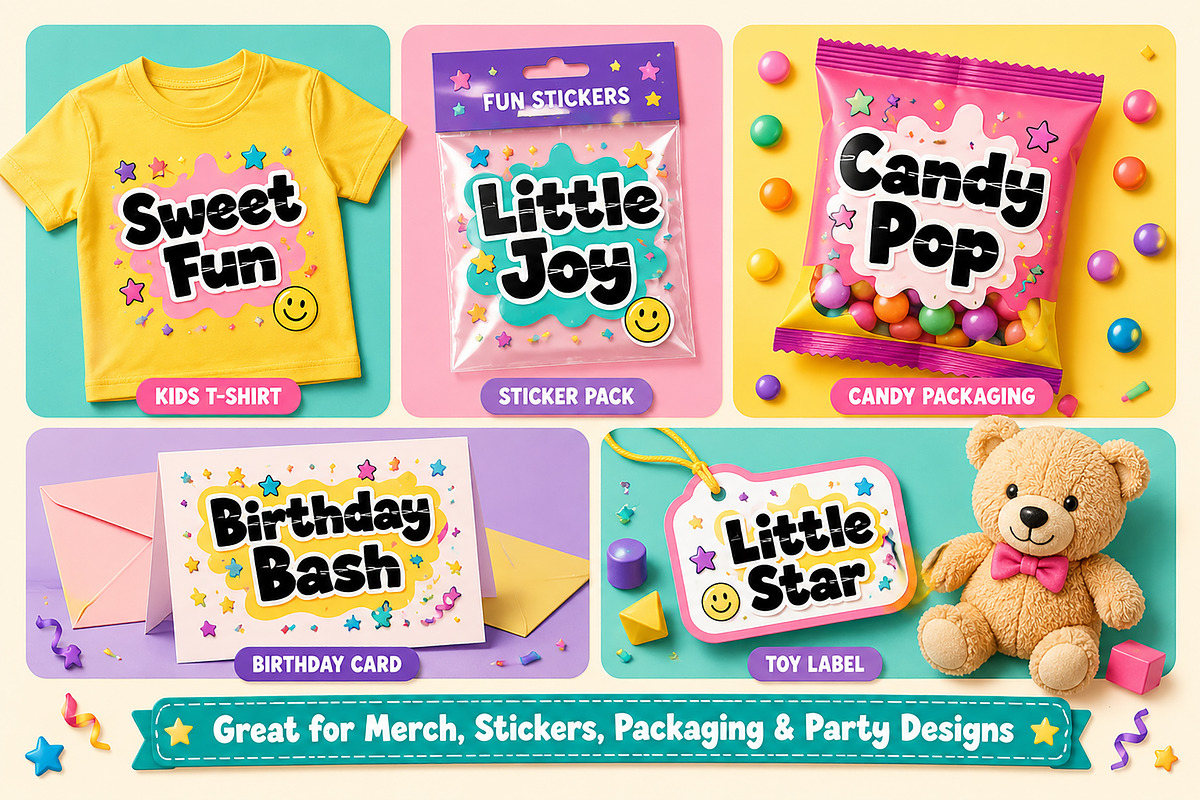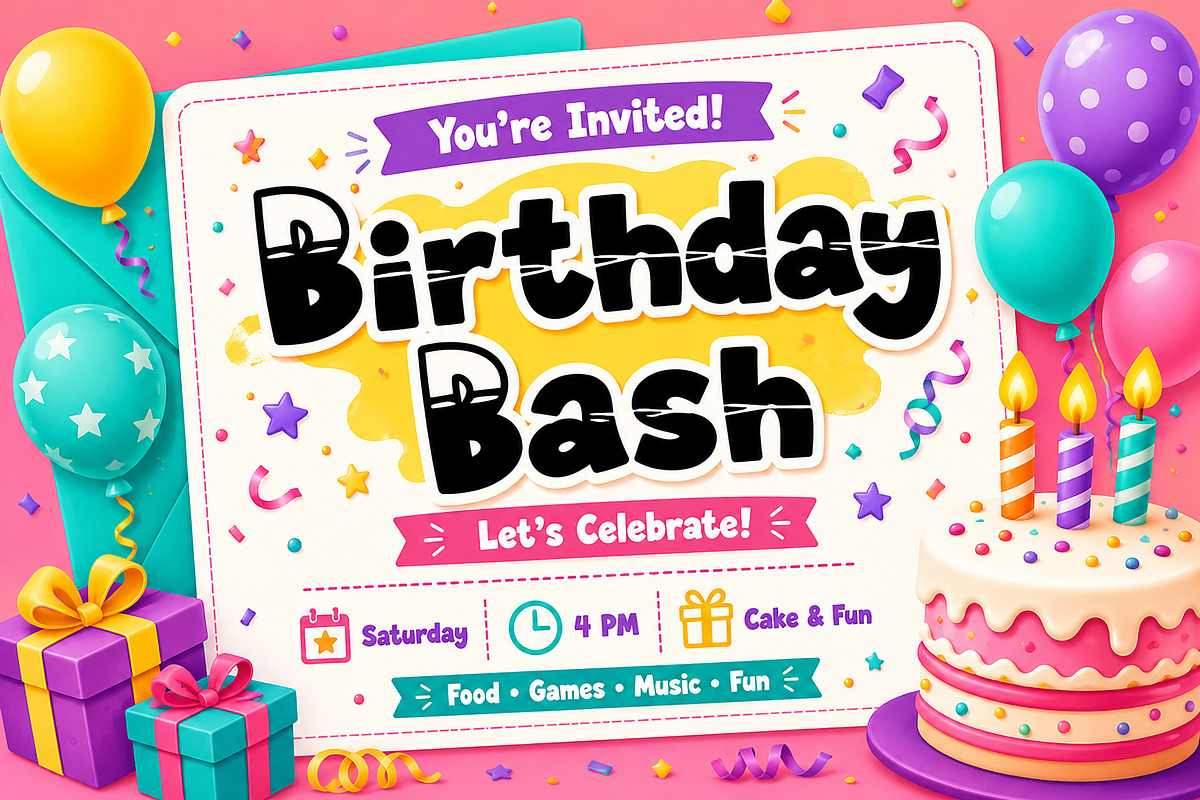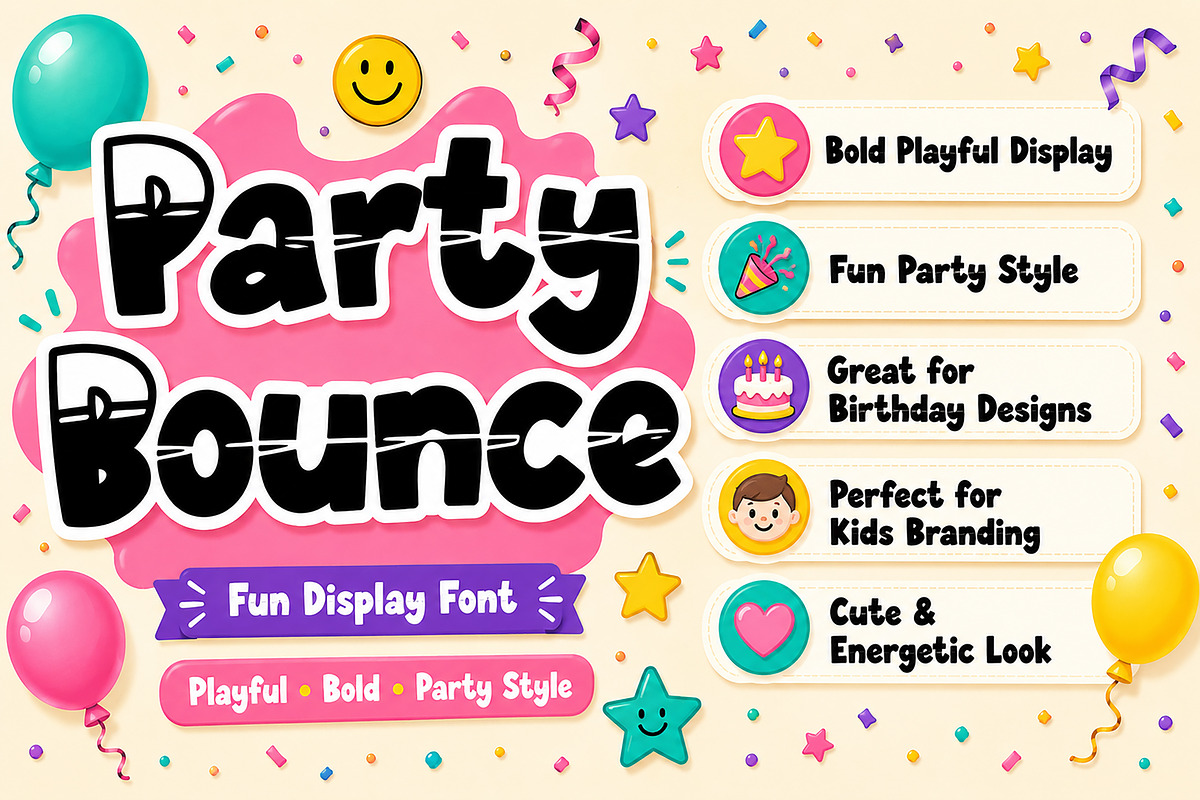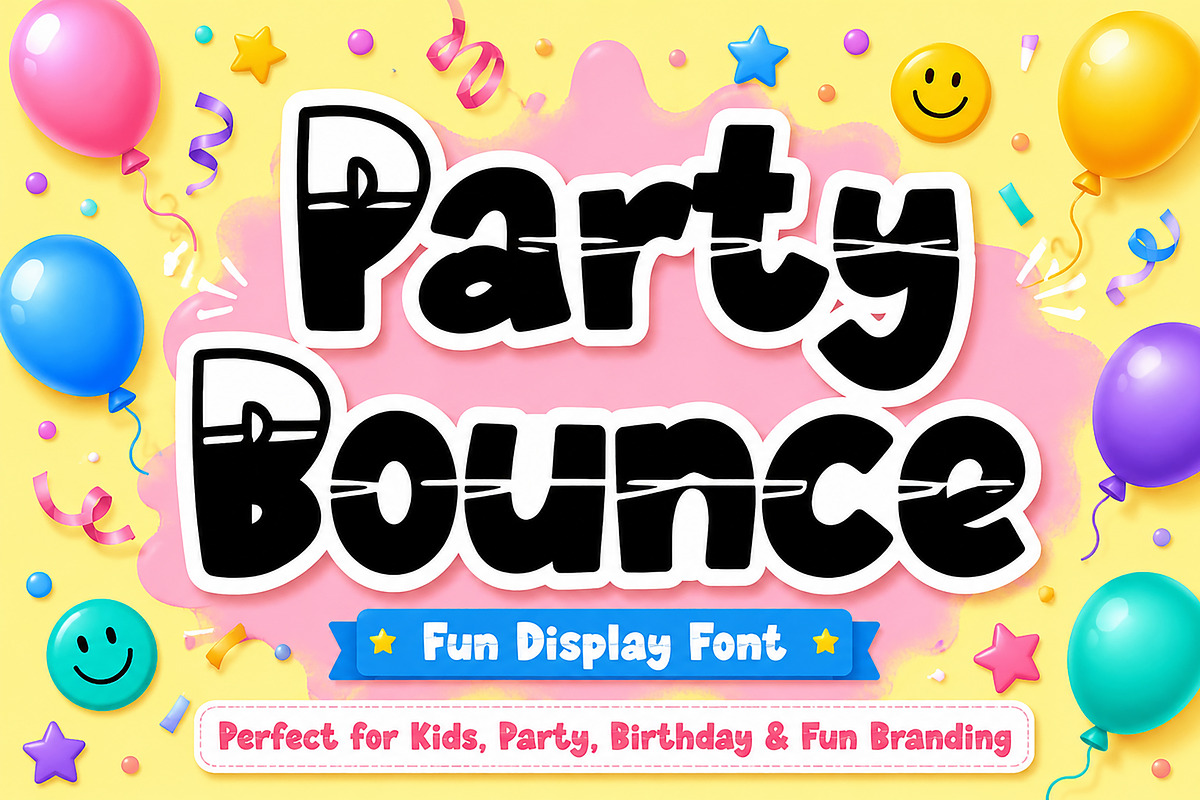
Party Bounce
Party Bounce is a fun, bold, and playful display font designed to bring energy and excitement to every project. With its chunky letterforms, cheerful personality, and unique hand-crafted style, this font is perfect for kids' designs, birthday invitations, party decorations, product packaging, stickers, branding, social media graphics, and more.
Whether you're creating eye-catching posters, colorful merchandise, Cricut projects, classroom materials, or fun logos, Party Bounce adds a lively and memorable touch that instantly grabs attention.
Its friendly and energetic appearance makes it an excellent choice for both personal and commercial creative projects.
Birthday Invitations
Party Decorations
Kids Branding
Children's Books
Toy Packaging
Candy Packaging
Stickers
T-Shirt Designs
Greeting Cards
Posters
Logos
YouTube Thumbnails
Cricut & Silhouette Projects
Printable Designs
Classroom Materials
DIY Crafts
Scrapbooking
Uppercase & Lowercase Letters
Bring fun, happiness, and creativity to your next design with Party Bounce!